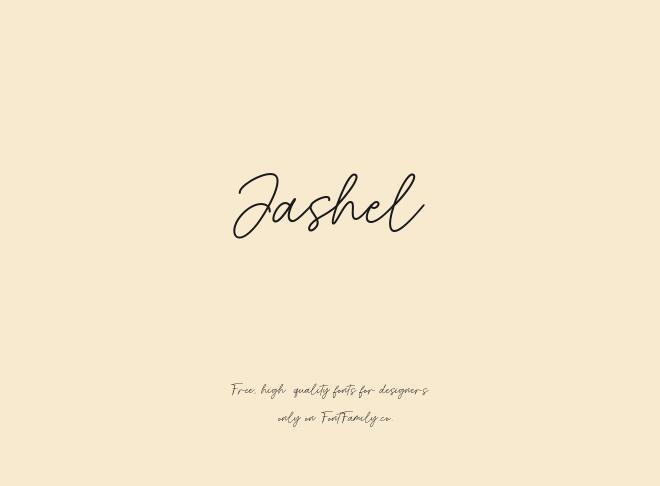
Jashel Font
Jashel Font, designed by Jashel Design Studio, is a playful and modern handwritten typeface. With its unique character forms, it brings a fresh and lively vibe to any design project. Its decorative elements make it an excellent choice for logos, branding, and display use. Compared to other fonts, Jashel Font stands out with its distinctive and stylish handwritten aesthetics. The font's modern touch makes it suitable for various digital platforms such as websites, social media posts, and online ads. Its playful nature also makes it a great choice for children's book covers, event invitations, or any design that needs a fun and whimsical touch. Free for personal use, Jashel Font offers designers a fantastic resource to add a unique flair to their work.